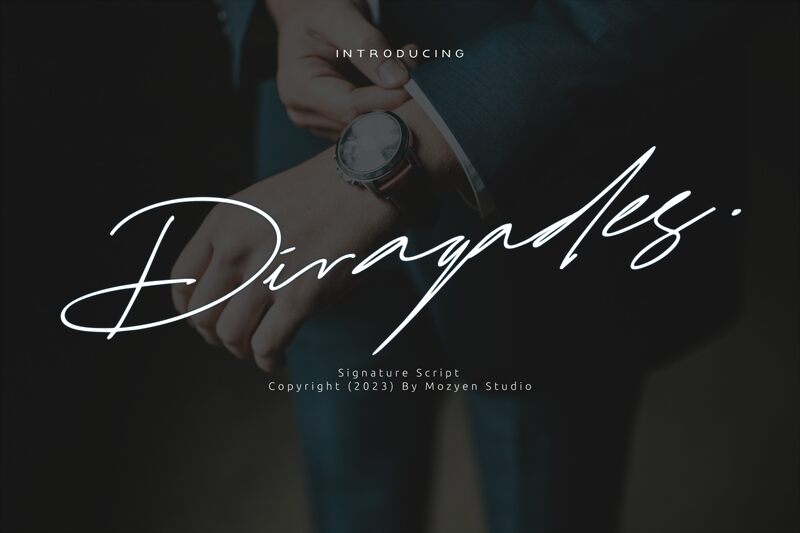
Diragades
Diragades font, designed by Mozyen Studio, is a light handwritten font that beautifully combines expressiveness with elegance. Known for its artistic elements and noticeable personalized design, the flowing characters of this font are less talk but more action. Use Diragades for a calm relaxed sensation and minimalistic artworks.
This free handwritten font can used for posters, stationery designs, branding projects, logos/wordmarks, packaging (food & drink), magazine & book covers, T-shirt design etc. Enjoy the gorgeous typography legibility and character of this amazing resource from Mozyen Studio!